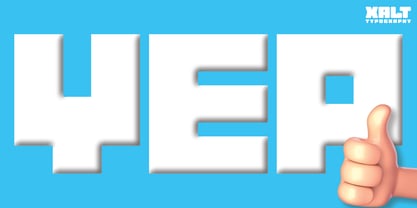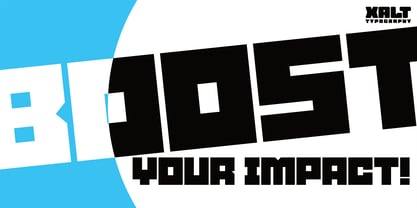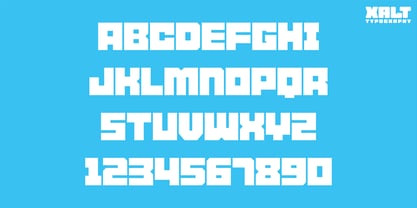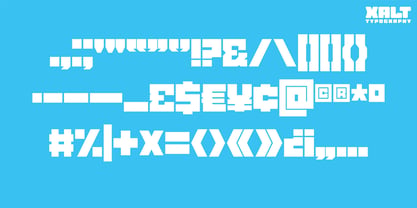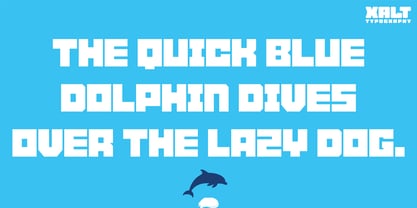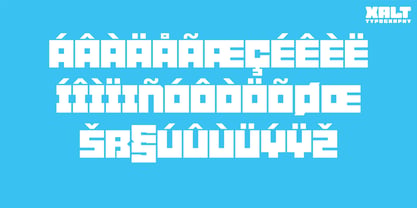
The Yep Font Family was designed by Asa Childress and published by XALT Typography. Yep contains 1 styles. More about this family
If you're looking to make an impact, Yep is built to deliver your message with confidence and clarity. Designed with careful precision down to the smallest detail, Yep looks great no matter what you type! Whether you're designing T-shirts, YouTube thumbnails, marketing graphics or anything else that needs to grip the eye, Yep is ready to catch attention with ease!
Here's why you should add YEP to your toolkit:
• Super versatile: This bold block display font works beautifully across a wide range of projects, from graphic design and marketing to logos, posters and branding.
• Unique characteristics: With its strong structure and distinctive style, Yep brings a fresh and original feel to your designs, giving your words a confident visual identity.
• Extensive punctuation: All essential punctuation marks are included, carefully designed to match the bold Yep style.
• Multi-lingual support: Extended Latin coverage for French, Spanish, Portuguese, Italian, German and more.
There's one thing left to say... YEP!